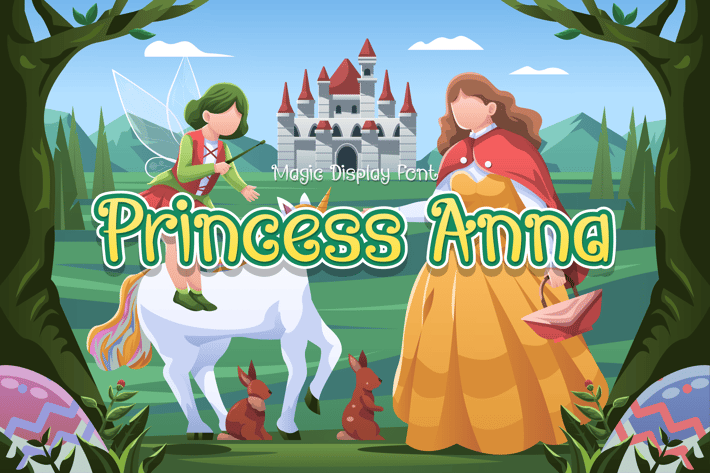
Princess Anna - Magic Display Font
Its unique shape remind us about the magical era of prince and princess that rules the world.
Suit perfectly for magical adventure themes books market, costume party poster, stationary, school supplies font, youtube covers, youtube thumbnails, social media page covers and so on...